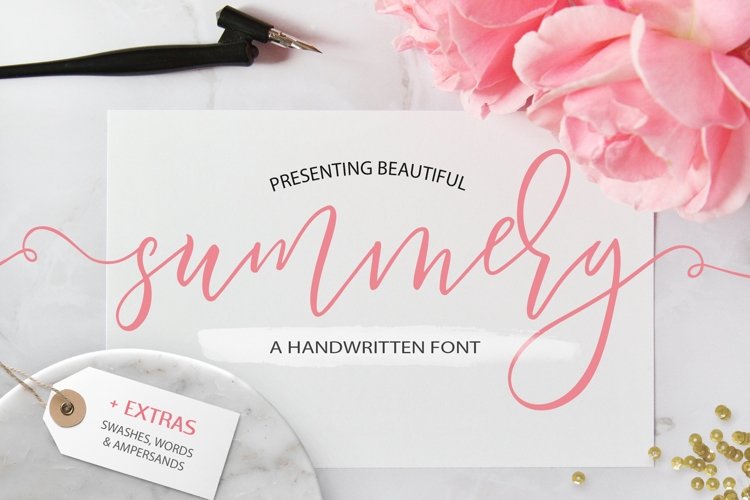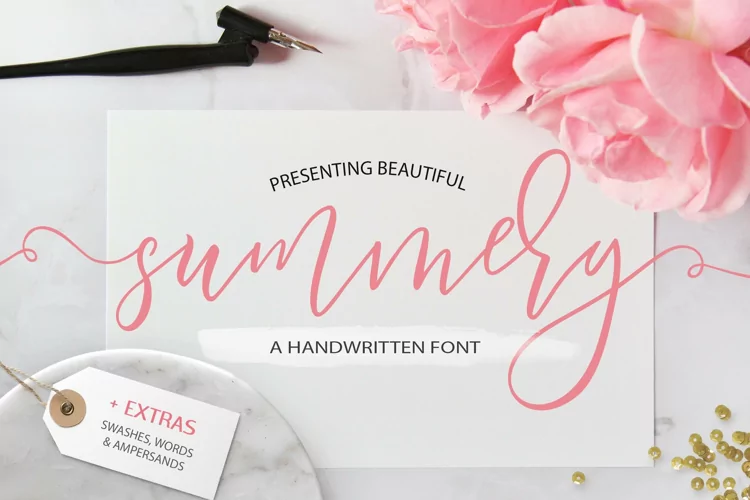
Web Font Summery Handwritten Calligraphy Font
Summery is a beautiful handwritten font with a unique bouncy
character. It looks perfect on wedding invitations, posters, wall
prints, greeting cards and planners. Besides that you can use it on
social media and for your own branding - it will add vivid and elegant
touch!
The Summery font also comes with beautiful swashes -
curled and straight. Such decorative elements looks very romantic and
interesting. You can access the swashes easily at any software. Just
The pack also contains catchwords and additional swashes to choose from. So many possibilities for wedding design!
Most diacritics are included and the font can be used with most of the European languages (it includes Western and Central European support).
- Two additional fonts with swash letterforms (letters with final and initial swashes).
-- Swashes are only available on lowercase letterforms, but you can
always use the glyphs panel to manually add the swashes to your
uppercase letters too.